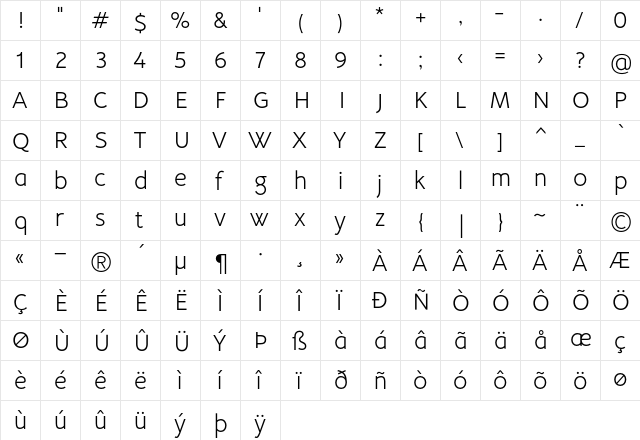
no_name_37 Light
| Foundry | Igor Kosinsky |
| Designer | Igor Kosinsky |
Design Context for no_name_37 Typeface
no_name_37 takes a measured approach to typography — its balanced proportions and neutral character make it a reliable workhorse for both digital and print work. The delicate stroke weight brings airiness and refinement to layouts.